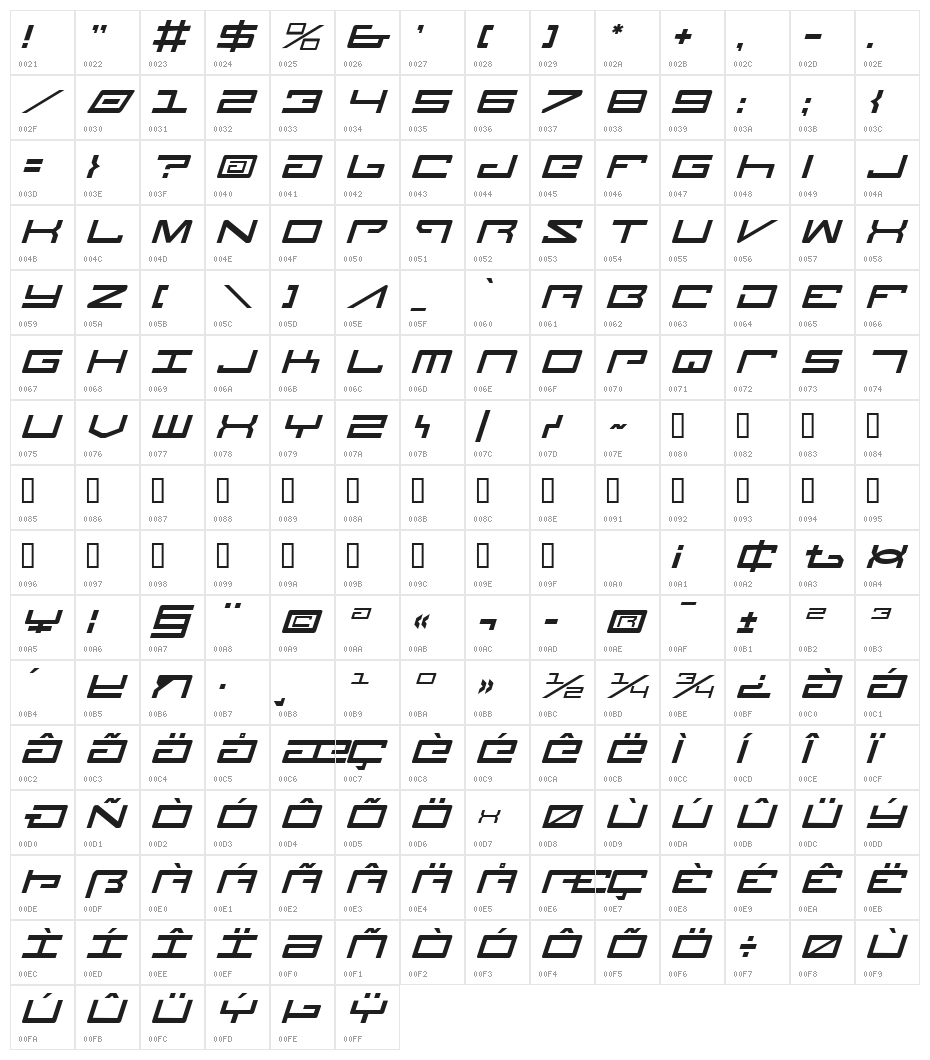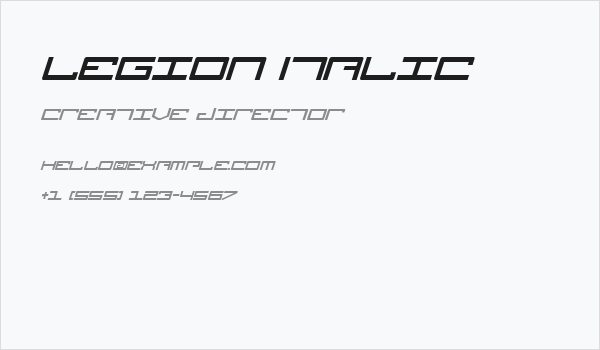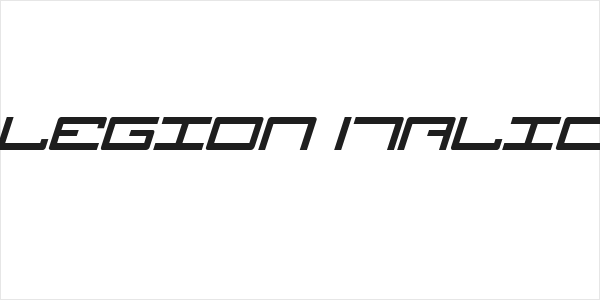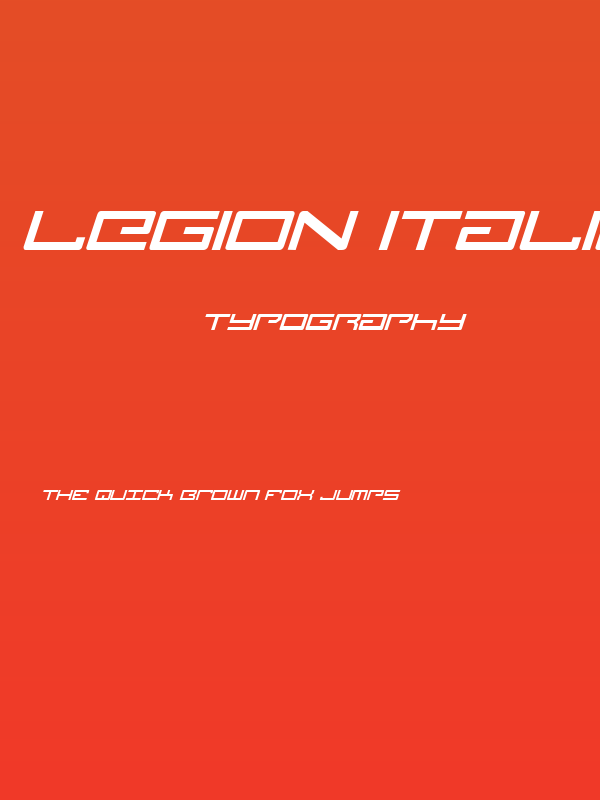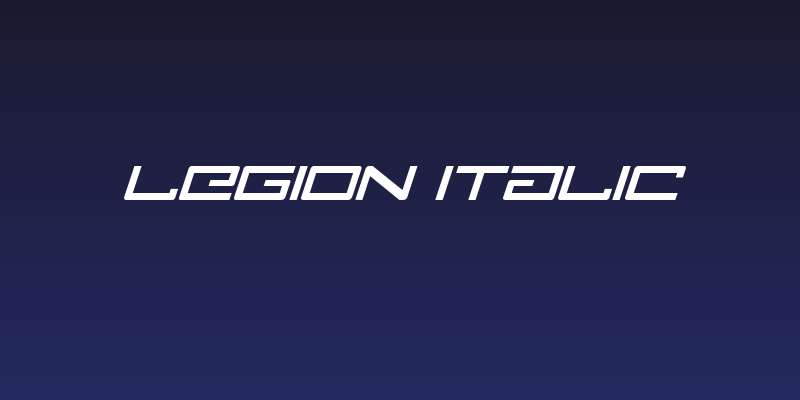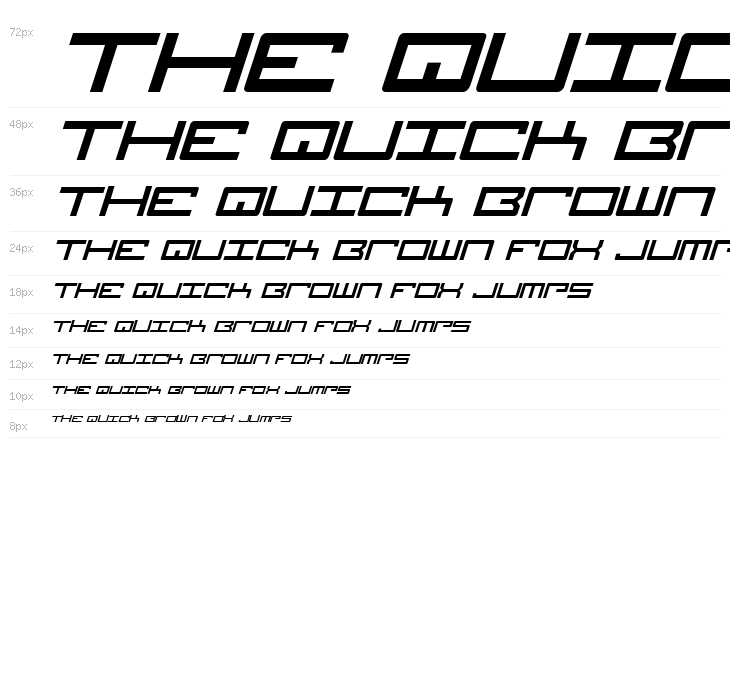
Legion Italic Font
Legion Italic Description
This font features a futuristic and angular design, characterized by its sharp edges and italicized form. The letters are distinctly geometric, with a consistent slant that adds a sense of motion and dynamism. The uppercase and lowercase letters maintain a uniform style, with the uppercase being slightly more pronounced. Numbers and special characters follow the same angular theme, ensuring a cohesive look across all elements. The font's boldness and unique style make it stand out, ideal for projects that require a modern and edgy appearance.
| Proposed Projects | Ideal for sci-fi themed designs, video game graphics, technology branding, and modern posters. |